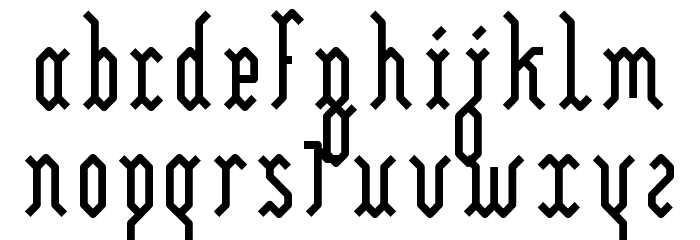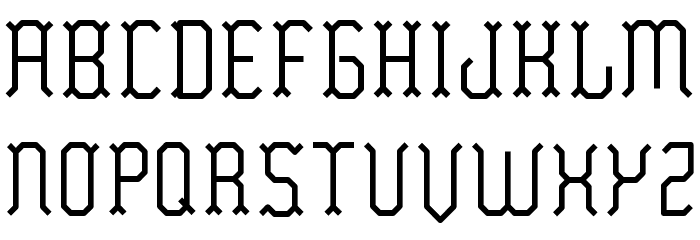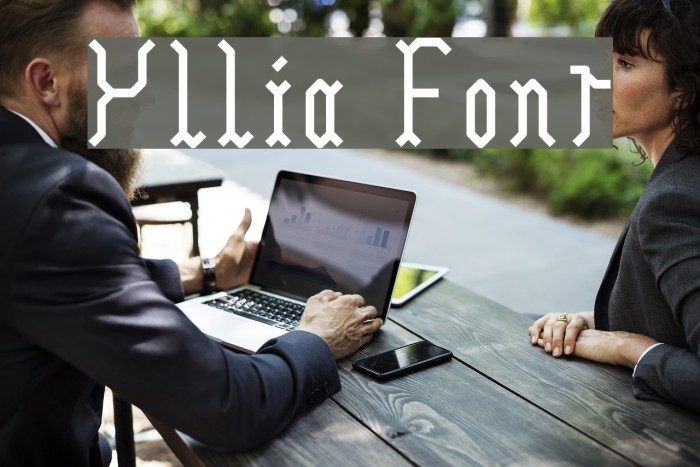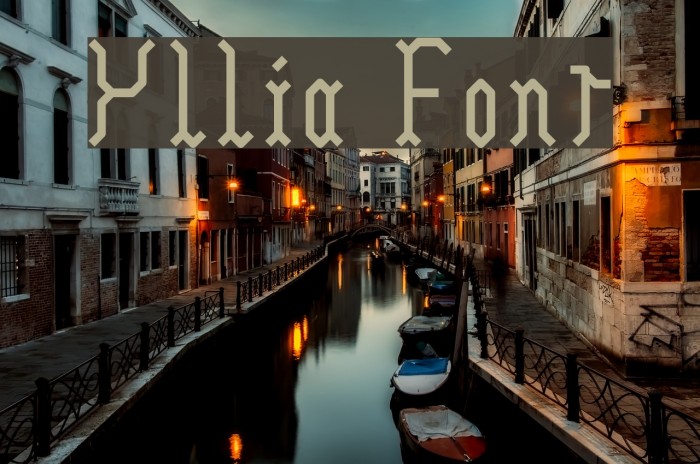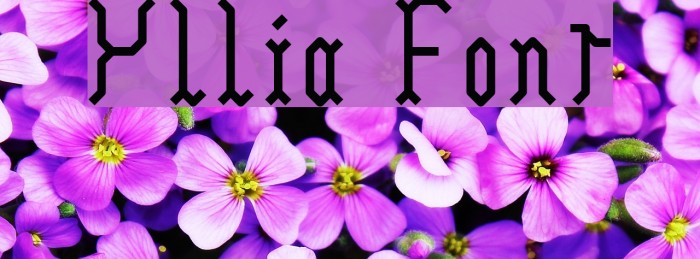
Yllia Font
This font exhibits a distinctive and bold design characterized by its geometric and angular letterforms. The uppercase and lowercase characters maintain a consistent style, with sharp edges and a uniform stroke width that gives it a modern yet slightly vintage feel. The font's unique structure is reminiscent of early 20th-century industrial design, making it stand out with its decorative elements. The numerals and special characters follow the same stylistic approach, ensuring cohesion across all glyphs. Its overall appearance is both striking and versatile, suitable for a variety of creative applications.
A bold, geometric font with angular letterforms and a modern vintage appeal.
- Font: Yllia
- Proposed Projects: Ideal for branding, poster design, album covers, and any project requiring a bold, distinctive typeface.
- Overall Style: Modern Vintage